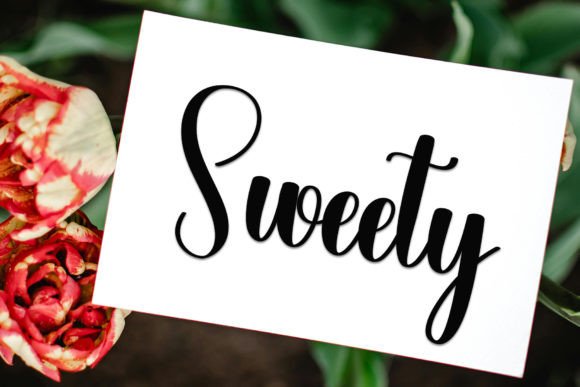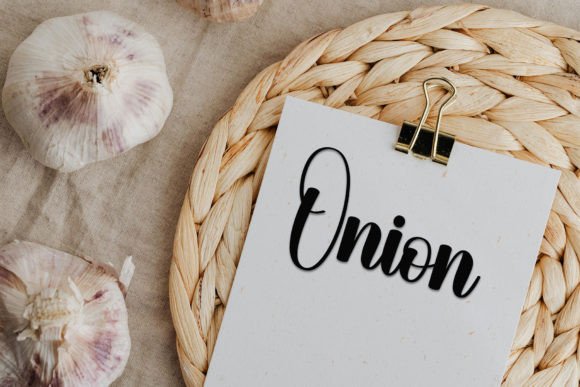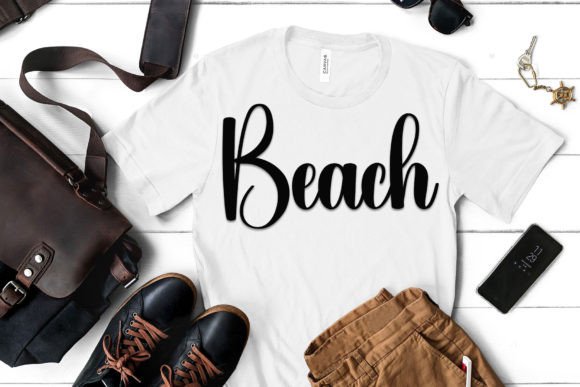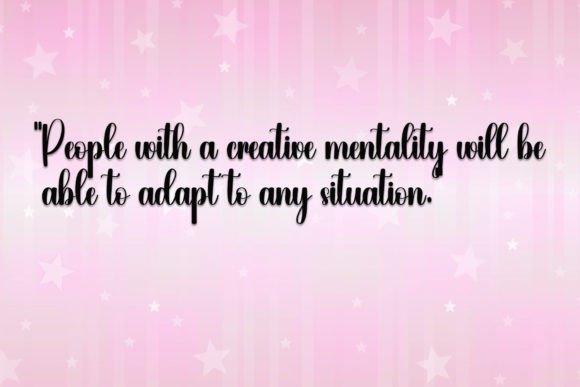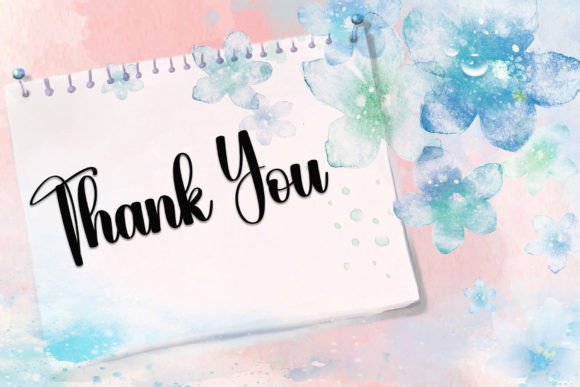
Get Ready to Deck the Halls with the Perfect Holiday Font
Do you remember the excitement of unwrapping a beautifully designed holiday card or gift, with its intricate details and whimsical charm? That’s the magic of the holiday season, and it’s exactly what the Boho Font aims to capture. This festive and happy typeface is perfect for adding a touch of cheer to your designs, from greeting cards to gift labels and holiday-themed projects.
As a designer, you know how important it is to find the right font to bring your vision to life. That’s where the Boho Font comes in – its unique flair and decorative elements make it a valuable addition to any design toolkit. With its PUA coding, you’ll have easy access to all the amazing glyphs and ligatures, allowing you to create truly special designs that capture the spirit of the season.
Key Features of Boho Font
- Unique Characteristics: Boho Font features a unique blend of vintage and bohemian styles, with intricate details and ornaments that evoke a sense of free-spirited elegance.
Boho Font Review
Boho Font is a beautiful, hand-drawn font that’s perfect for creative projects. ✨ The unique, eclectic design is reminiscent of bohemian style, making it ideal for projects that require a touch of whimsy and sophistication. ✨ The font is highly customizable, with a wide range of styles and sizes to choose from.
- ✨ Highly customizable with various styles and sizes.
- ✨ Perfect for creative projects, such as typography-based designs, posters, and social media graphics.
- ✨ The unique design adds a touch of personality to any project.
However, there are a few limitations to keep in mind. ⚠️ The font can be quite bold, which may not be suitable for all projects. ⚠️ Additionally, the font may not be as legible at smaller sizes, which could be a concern for certain applications.
Overall, I’m impressed with Boho Font’s unique design and customization options. While it may have some limitations, it’s a great choice for creative projects that require a touch of personality and sophistication. With some careful selection of font sizes and styles, you can achieve amazing results with this font.
Getting the Most Out of Boho Font
The Boho Font is commonly used in:
– Wedding invitations and decorations
– Travel and adventure branding
– Artistic and creative projects
– Food and beverage branding
Alternative Fonts to Boho Font
Alex Brush is a beautiful script font that is perfect for adding a touch of elegance and sophistication to your designs. It is ideal for use in wedding invitations, menus, and other formal events where a high-end look is desired. Compared to Boho Font, Alex Brush has a more refined and polished appearance, making it suitable for more formal designs.
Great Vibes is a modern script font that is perfect for adding a fun and playful touch to your designs. It is ideal for use in social media graphics, advertising, and other marketing materials where a bold and eye-catching look is desired. Compared to Boho Font, Great Vibes has a more energetic and youthful appearance, making it suitable for designs that require a modern and trendy feel.